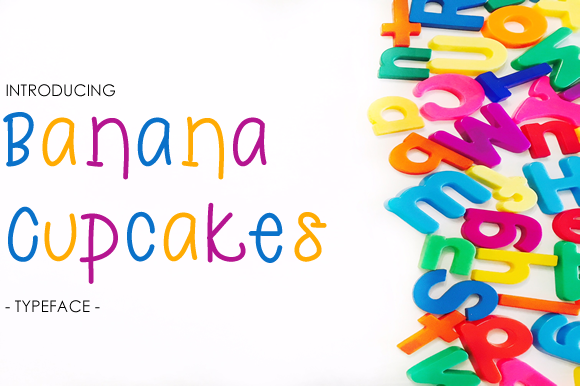
Banana Cupcakes Font: The Perfect Choice for Charming and Casual Designs
Are you a designer or crafter looking for a font that can add a touch of whimsy and playfulness to your projects? Look no further than the Banana Cupcakes font! This cutesy sans serif font is perfect for use in charming and casual works, and is sure to make your designs stand out.
What is Banana Cupcakes Font?
Banana Cupcakes is a sans serif font that is designed to be bold and poppy. It’s a fun and playful font that’s perfect for use in a variety of design projects, from baking and crafting to branding and advertising. The font features rounded edges and a soft, friendly feel that’s sure to appeal to anyone looking for a charming and approachable look.
Key Features of Banana Cupcakes Font
• Cutesy and playful design: Banana Cupcakes font features a unique and playful design that’s sure to add a touch of whimsy to your projects.
• Sans serif font: This font is a sans serif font, which means it doesn’t have any decorative lines or flourishes. This makes it easy to read and perfect for use in a variety of design projects.
• Bold and poppy: Banana Cupcakes font is designed to be bold and poppy, making it perfect for use in designs that need to stand out.
• Reads well: Despite its playful design, Banana Cupcakes font is easy to read and understand, making it perfect for use in a variety of applications.
Uses for Banana Cupcakes Font
Banana Cupcakes font is a versatile font that can be used in a variety of design projects, including:
• Baking and crafting: This font is perfect for use in baking and crafting projects, such as cupcake toppers, cake decorations, and craft labels.
• Branding and advertising: Banana Cupcakes font can be used in branding and advertising projects, such as logos, business cards, and flyers.
• Party decorations: This font is perfect for use in party decorations, such as banners, invitations, and party favors.
• Digital designs: Banana Cupcakes font can be used in digital designs, such as social media graphics, blog posts, and website headers.
Why Choose Banana Cupcakes Font?
There are many reasons why you should choose Banana Cupcakes font for your design projects. Here are just a few:
• Unique and playful design: Banana Cupcakes font features a unique and playful design that’s sure to add a touch of whimsy to your projects.
• Easy to read: This font is easy to read and understand, making it perfect for use in a variety of applications.
• Versatile: Banana Cupcakes font can be used in a variety of design projects, from baking and crafting to branding and advertising.
Tips for Using Banana Cupcakes Font
Here are a few tips for using Banana Cupcakes font in your design projects:
• Use it sparingly: Banana Cupcakes font is a bold and playful font, so it’s best to use it sparingly to avoid overwhelming your design.
• Pair it with other fonts: This font pairs well with other sans serif fonts, such as Arial or Helvetica.
• Experiment with colors: Banana Cupcakes font looks great in a variety of colors, so don’t be afraid to experiment and find the perfect color for your design.
Banana Cupcakes font is a fun and playful font that’s perfect for use in charming and casual design projects. Its unique and playful design, ease of readability, and versatility make it a great choice for designers and crafters who are looking for a high-quality font. Whether you’re working on a baking or crafting project, or a branding or advertising project, Banana Cupcakes font is sure to add a touch of whimsy and playfulness to your design.